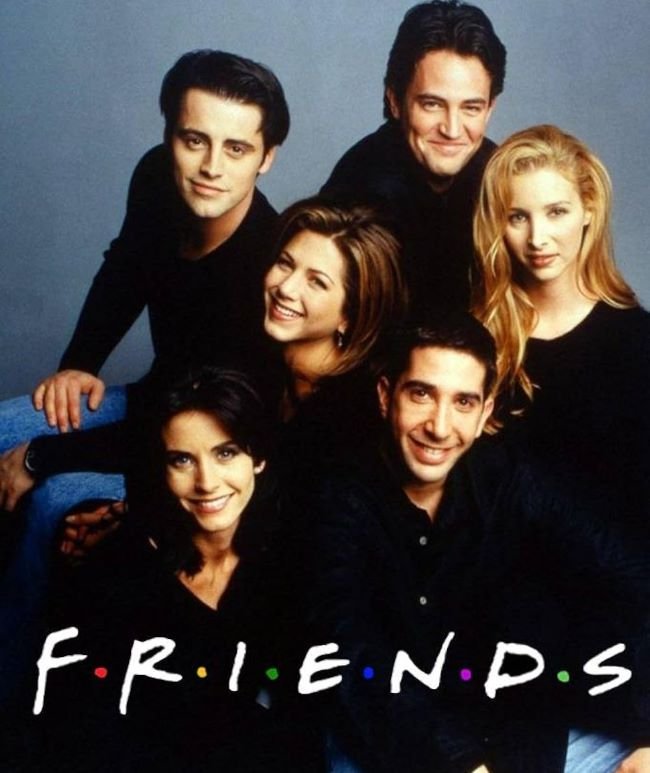
Friends Font
Friends font is a clean, cheerful sans-serif punctuated by coloured dots — one of the most recognisable and structurally simple title treatments in television history, which is precisely the point. The 1994 NBC sitcom needed lettering that could stand in for the warmth and accessibility of the show itself: nothing intimidating, nothing edgy, nothing that might suggest this was anything other than a programme about six funny, loveable people living improbably large New York apartments and having a genuinely great time. The freely available Friends Font recreates this instantly familiar typographic warmth for designers working across a wide range of contexts.